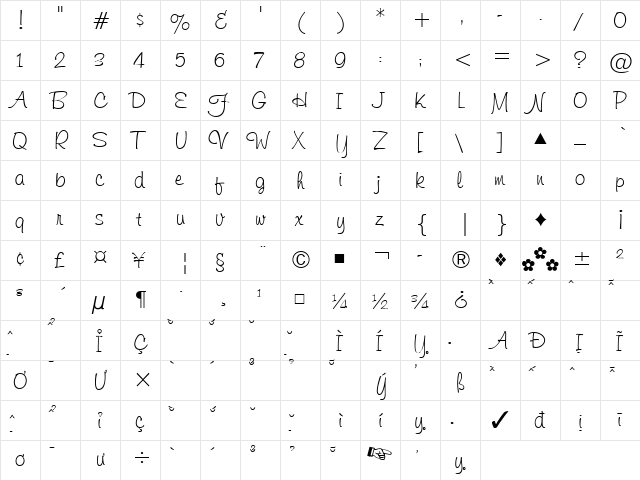
VNI-Freewrite Normal
Design Context for VNI-Freewrite Typeface
VNI-Freewrite takes a measured approach to typography — its balanced proportions and neutral character make it a reliable workhorse for both digital and print work.